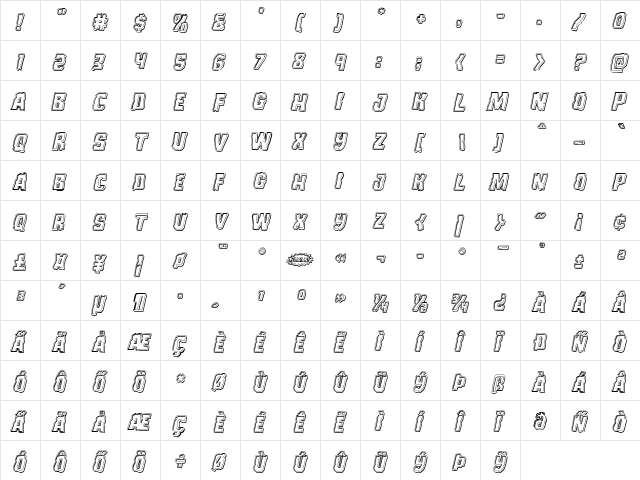
Monster Hunter Engraved Italic Italic
Design Context for Monster Hunter Engraved Italic Typeface
Monster Hunter Engraved Italic is built around its visual character rather than neutral utility — its distinctive forms are designed to make an impression at display sizes. The slanted form adds forward momentum and visual energy.
Font Pairing: Pair with a clean neutral sans-serif for body copy to let Monster Hunter Engraved Italic's character lead without overwhelming the composition.
Pro Tip: Use Monster Hunter Engraved Italic exclusively at display sizes — it was designed to be seen, not read at length. Let a neutral companion handle body copy.